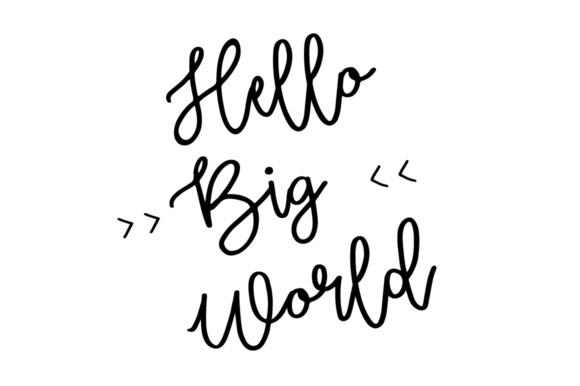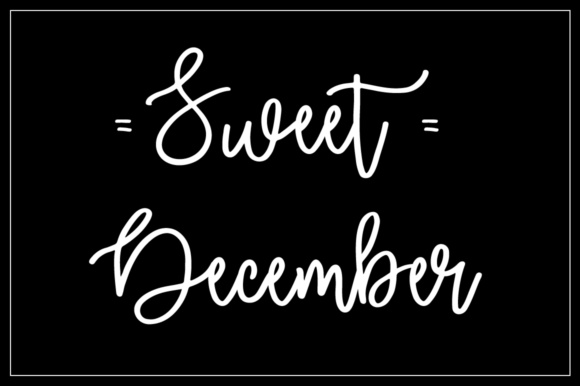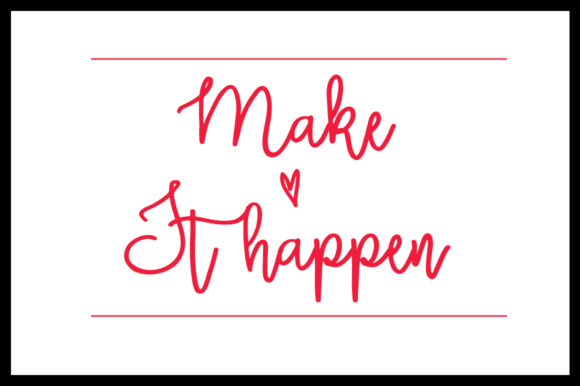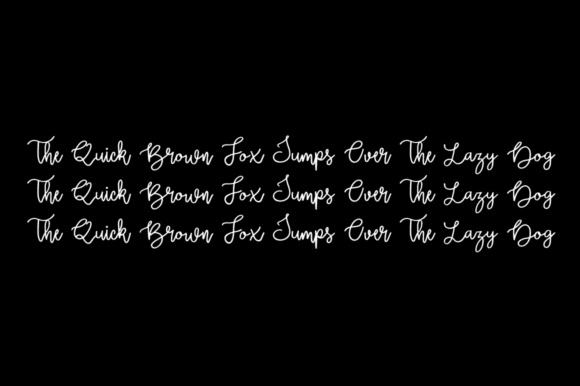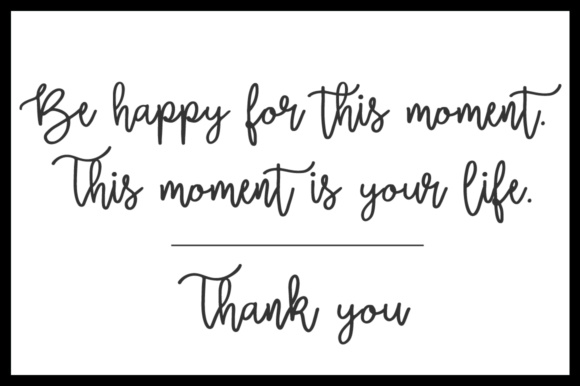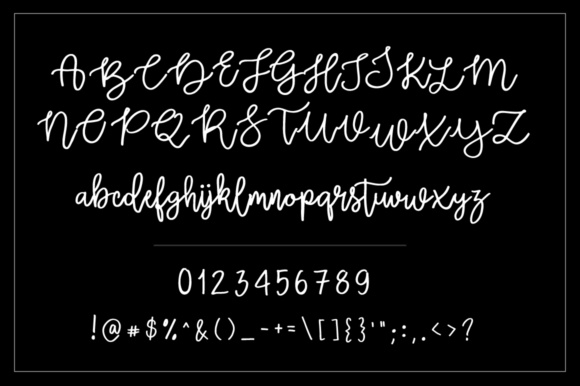
Zabar Font
About Zabar Font
The Zabar is an amazing handwritten font. It’s perfect for wedding invitations, blogs, frames, book covers, and much more!